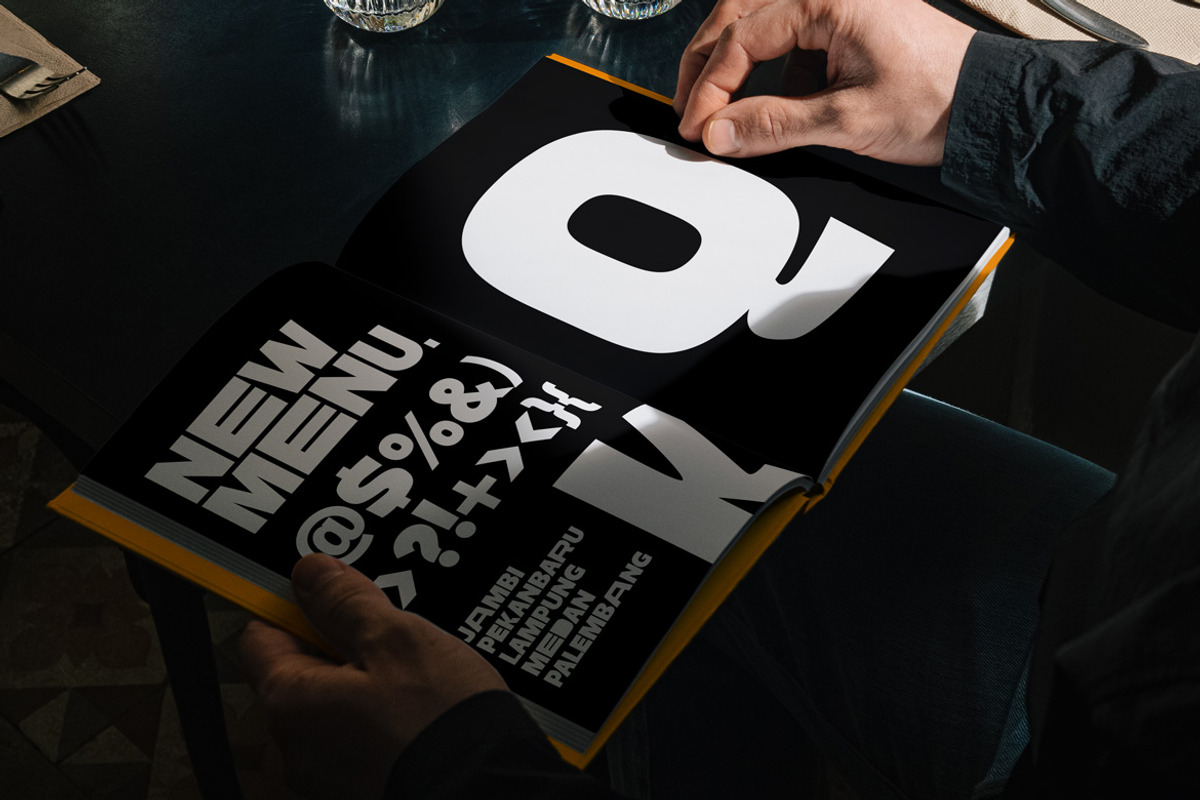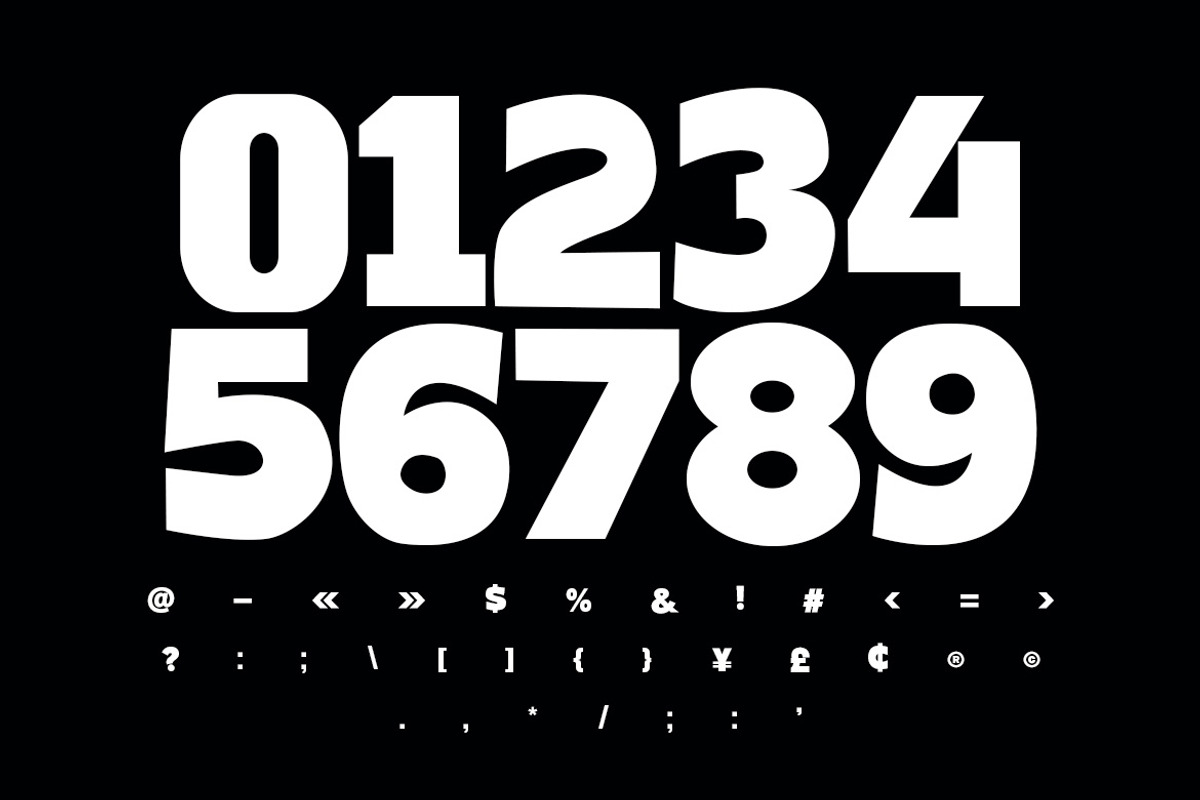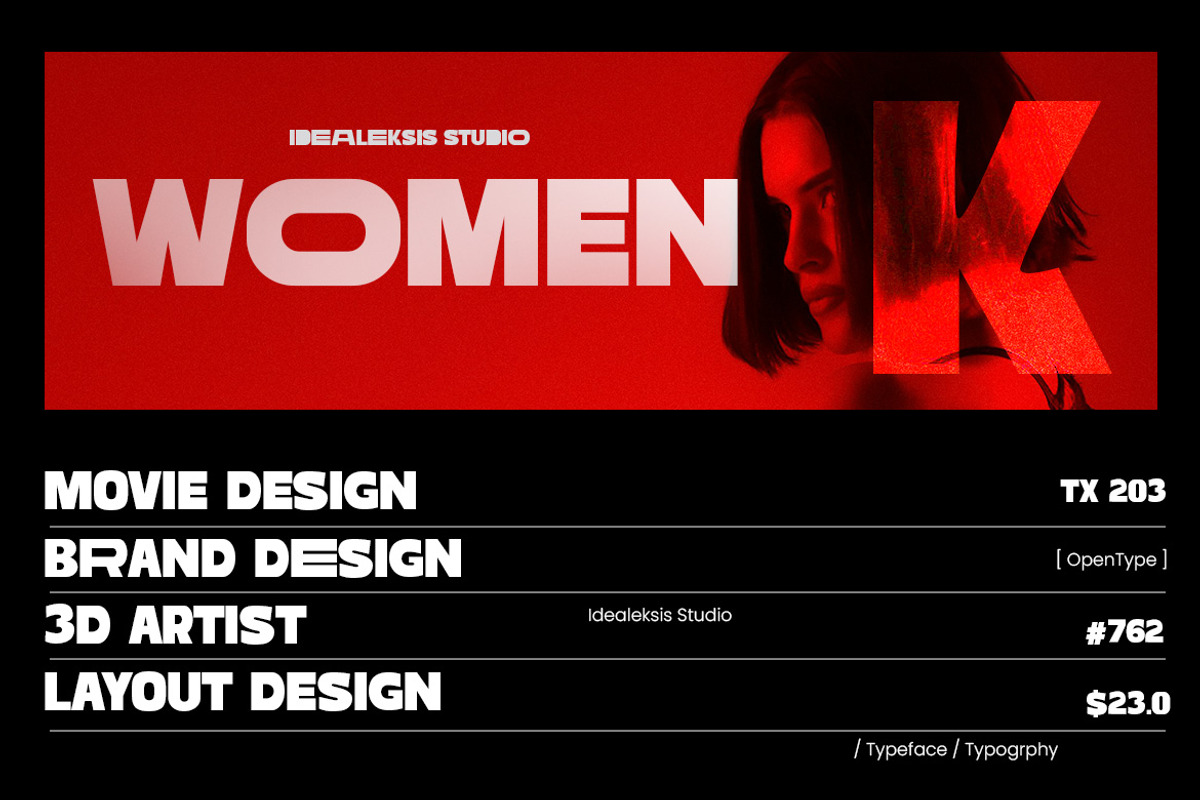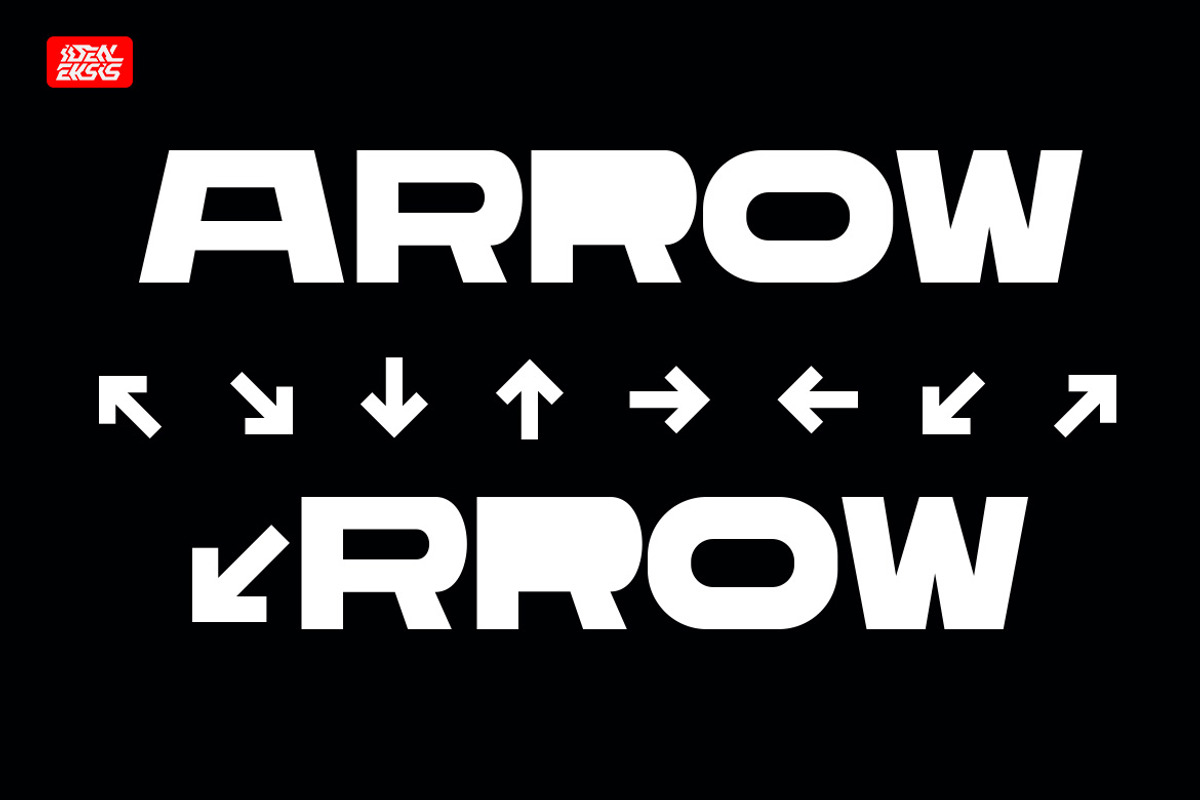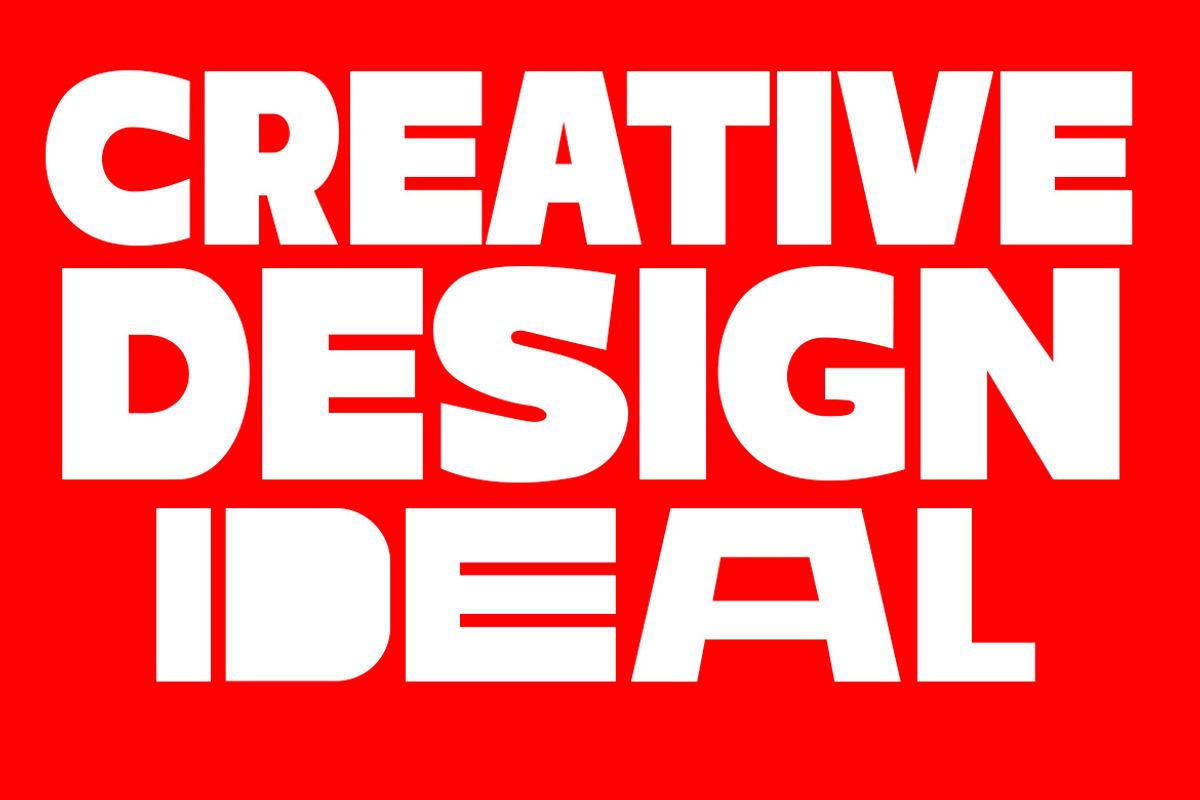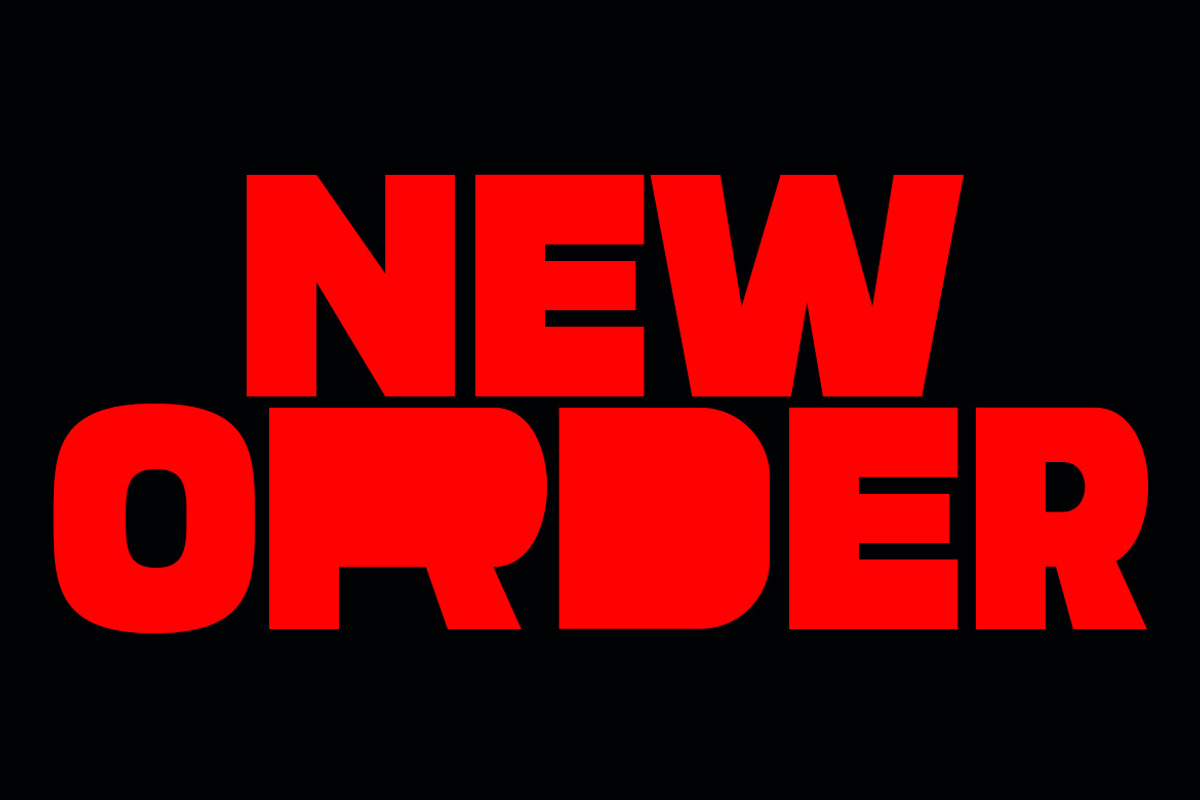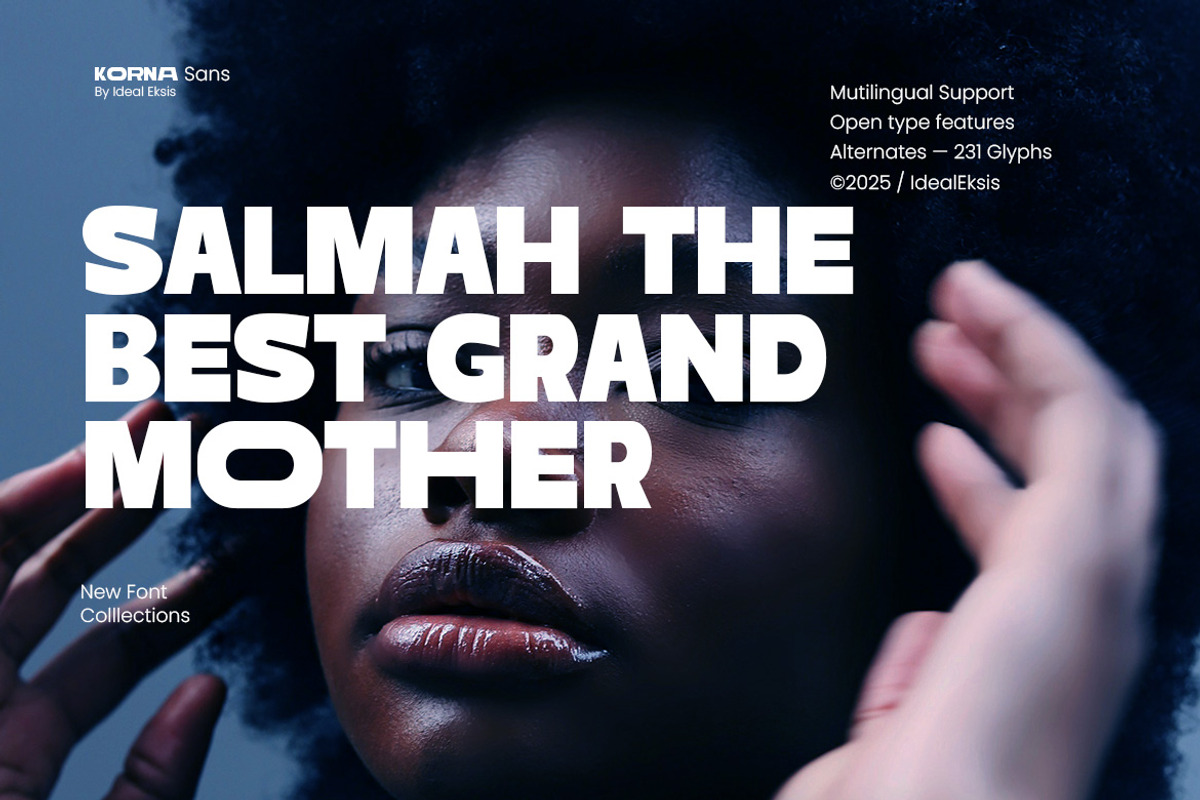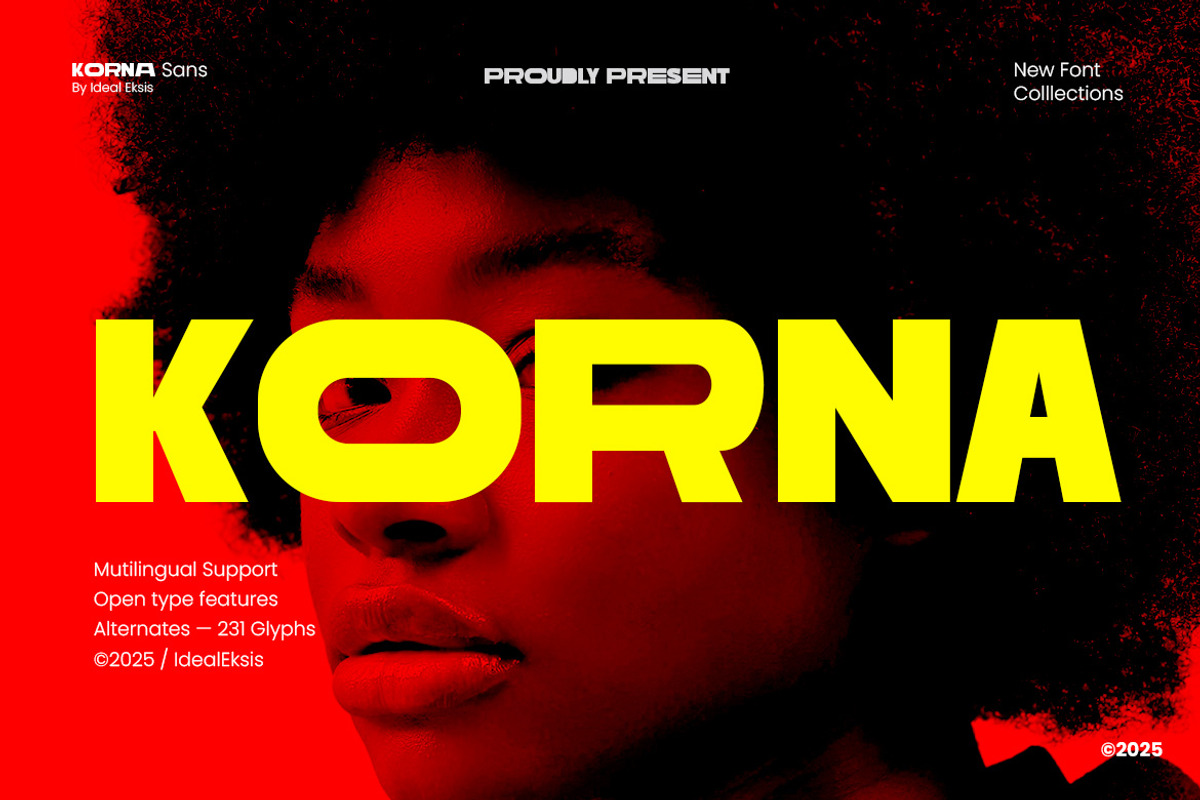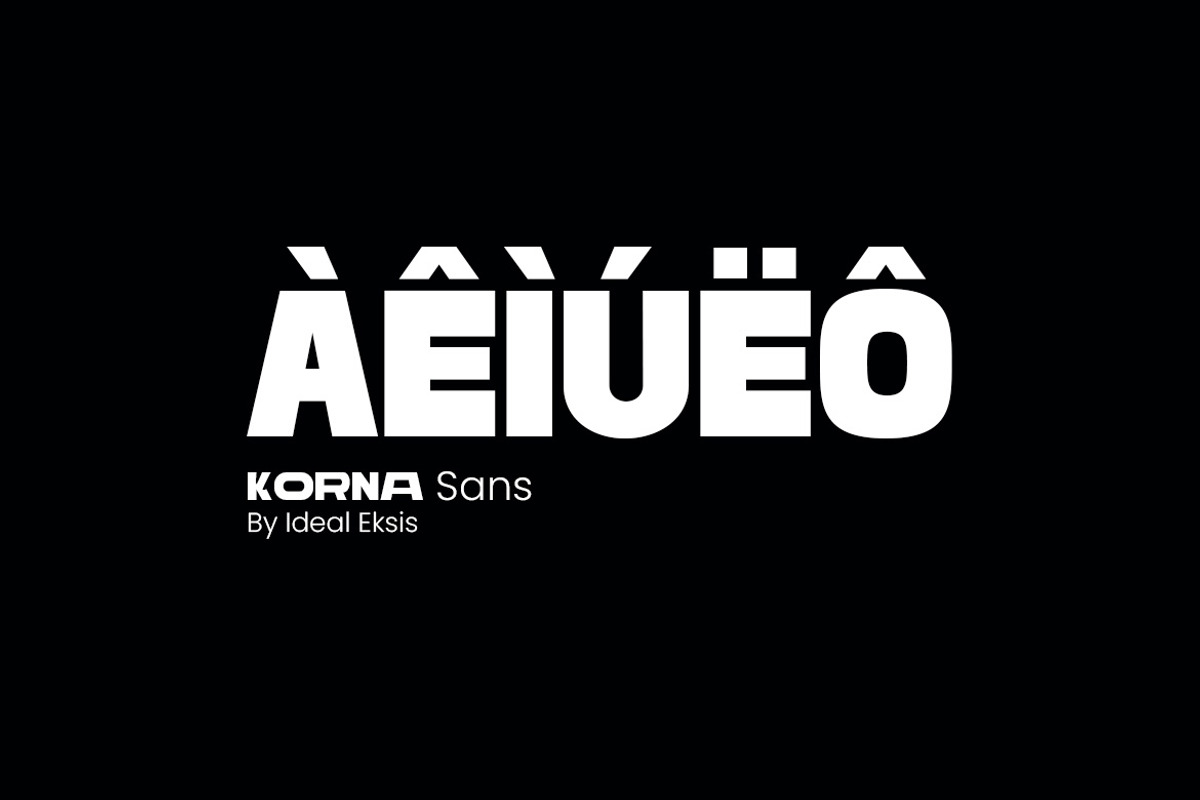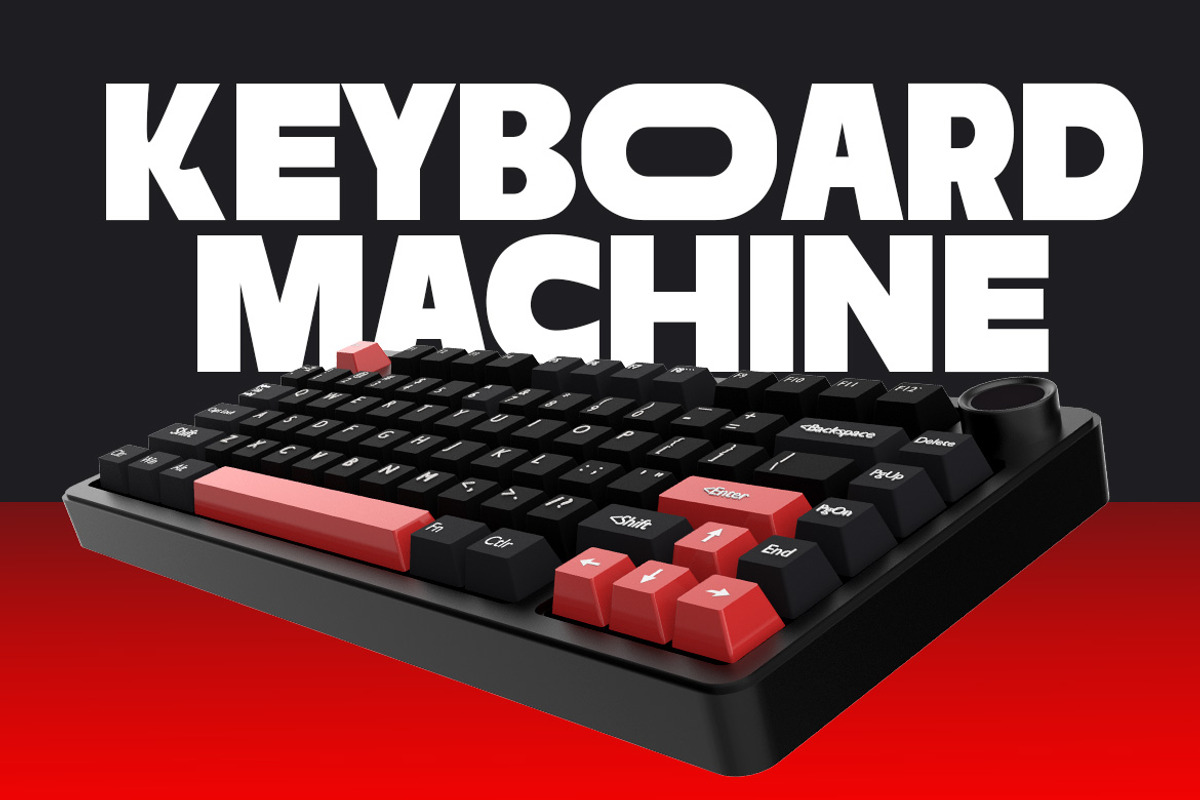
Korna
KORNA is a powerful, bold, and modern sans style built for strong visual presence. With its wide geometry, solid structure, and confident letterforms, KORNA delivers maximum impact in headlines, posters, branding, editorials, advertising, and digital visuals. The clean, sharp, and contemporary shapes make it perfect for projects that require clarity, strength, and a striking modern look. Featuring multilingual support and extensive OpenType alternates, KORNA offers versatility for both creative and professional use.
- Uppercase (All Caps)